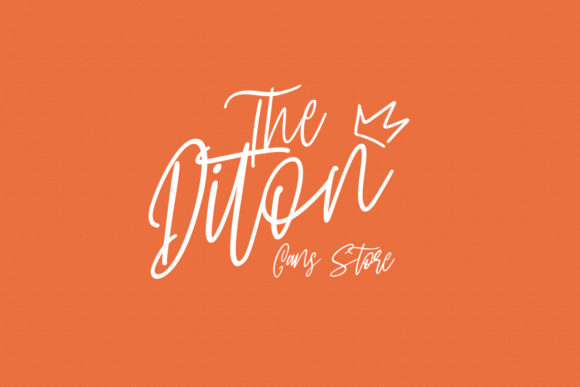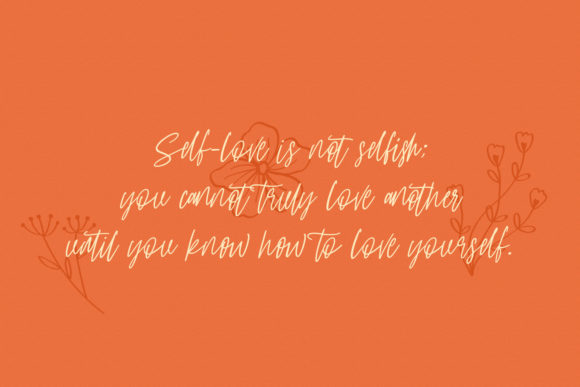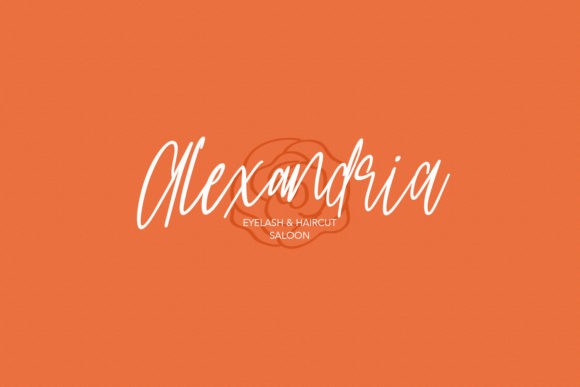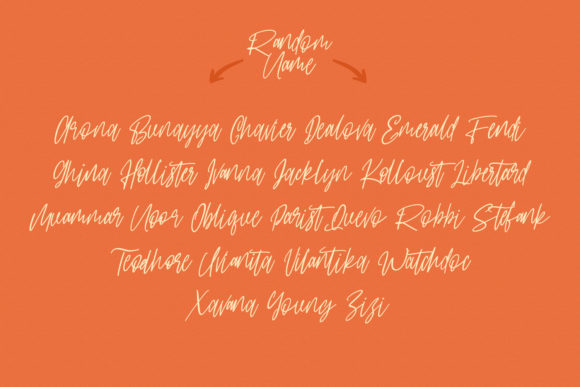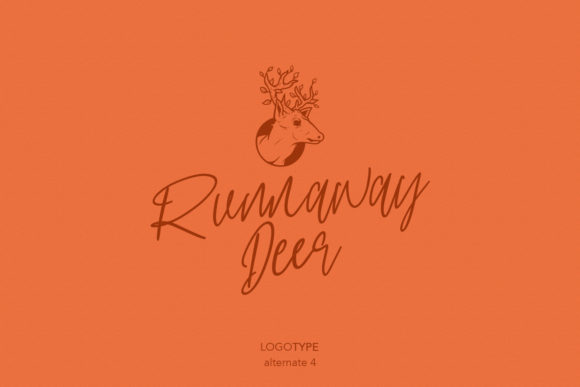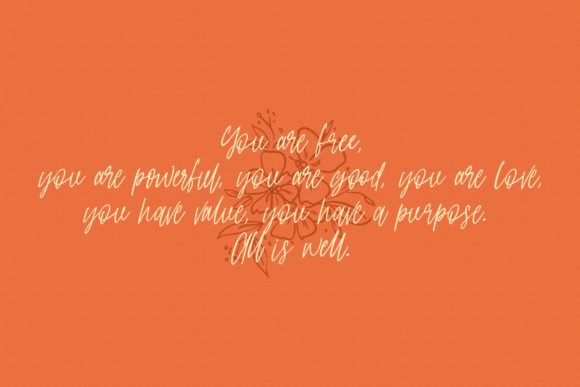
Introduction to Mashpoints Font
Mashpoints is a fancy, casual and thin lettered script font.
It can be used for various creations that require a stylish touch Fall in love with its incredibly versatile style and use it to create gorgeous wedding invitations, beautiful stationary art, eye-catching social media posts, and much more.
Key Features of Mashpoints Font
Why Choose Mashpoints Font?
Mashpoints Font offers exceptional quality and versatility, making it a valuable addition to your design toolkit. Whether you’re creating for personal projects or commercial use, Mashpoints Font delivers professional results.